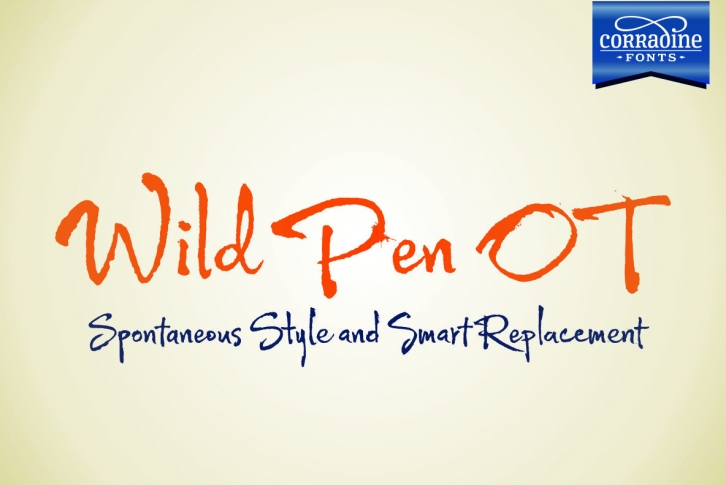
Wild Pen is a handwritten font written with an experimental pen made from recycled plastic bottle. Its spontaneous strokes are very free and allow presence of drops and blots of ink. The complete family consists of five different fonts which have the same feeling and allow mixing them to obtain a lifelike handwriting text, but Open Type users may choice Wild Pen OT, which includes not just the five basic sets but also contains many additional alternative characters and some discretionary ligatures.
Wild Pen OT is judiciously programmed to mix randomly the five basic sets and improve the texts with the additional alternative characters which have in some cases up to ten additional letters for each character. Wild Pen contains almost 1200 glyphs to cover many Latin languages (Western and Central European).